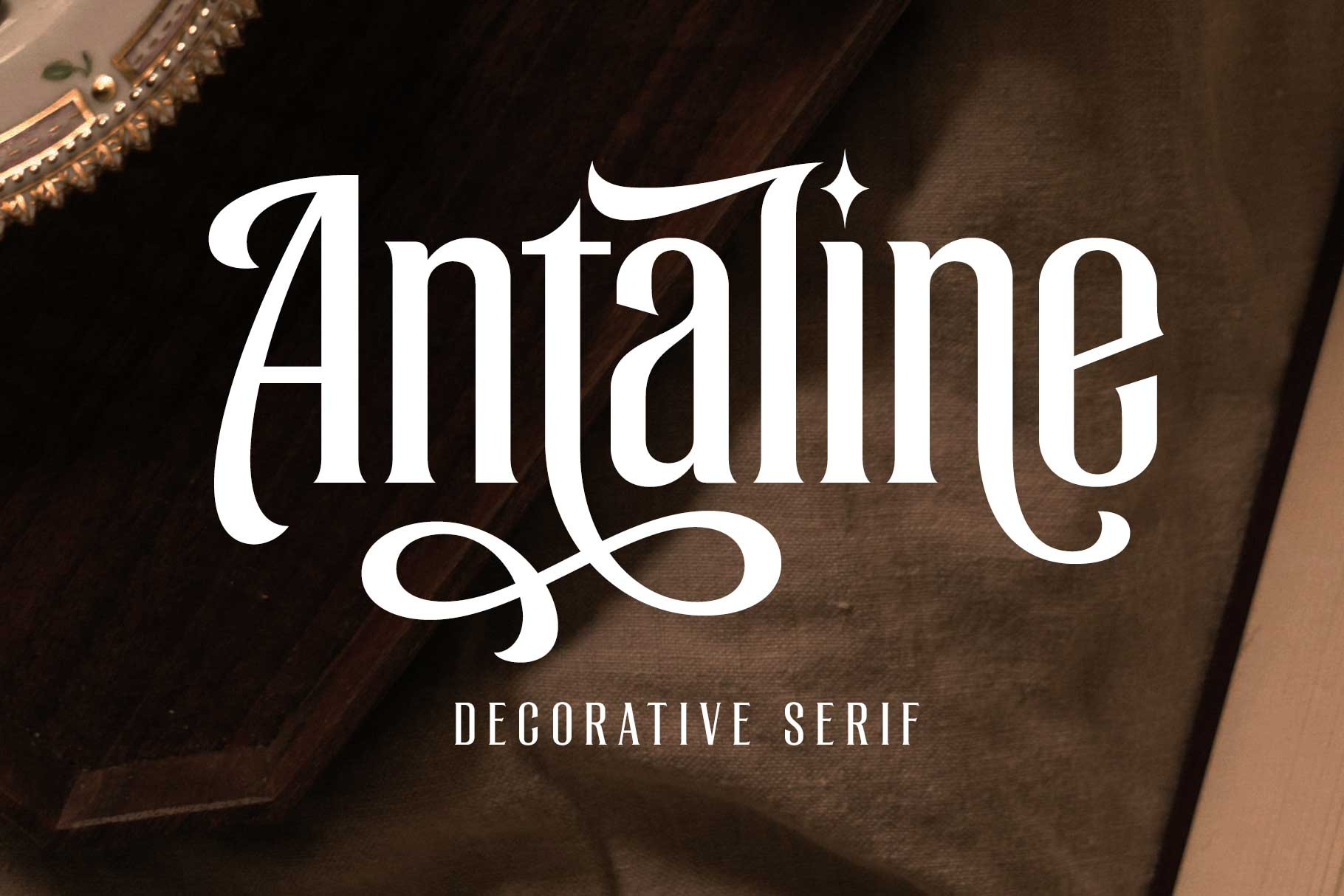
Antaline - Display Font
Antaline is an elegant display serif that blends timeless sophistication with artistic charm. Featuring dramatic high-contrast strokes, graceful proportions, and refined decorative details, it is designed to make every headline stand out with confidence and style. Complete with beautifully crafted alternates, flowing swashes, and 500+ carefully crafted glyphs, Antaline gives you the creative freedom to build unique logos, expressive branding, and editorial compositions that feel both luxurious and memorable.
Perfect for luxury branding, fashion, beauty, cafés, premium packaging, wedding stationery, and editorial design, Antaline adds a distinctive character to every project. Whether you're creating a refined wordmark, an eye-catching social media graphic, or elegant product packaging, its versatile OpenType features, multilingual support, and extensive character set ensure every composition feels polished, sophisticated, and effortlessly stylish.
Stylistic alternates
Stylistic set 01 - 10
Mulitlingual support